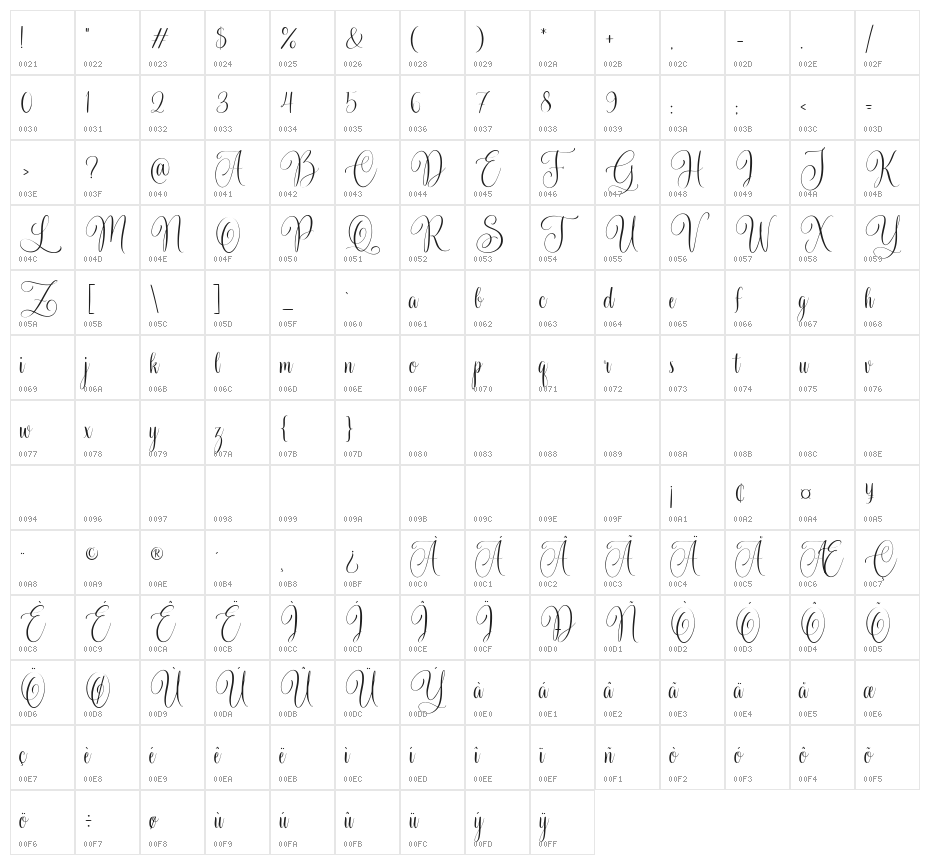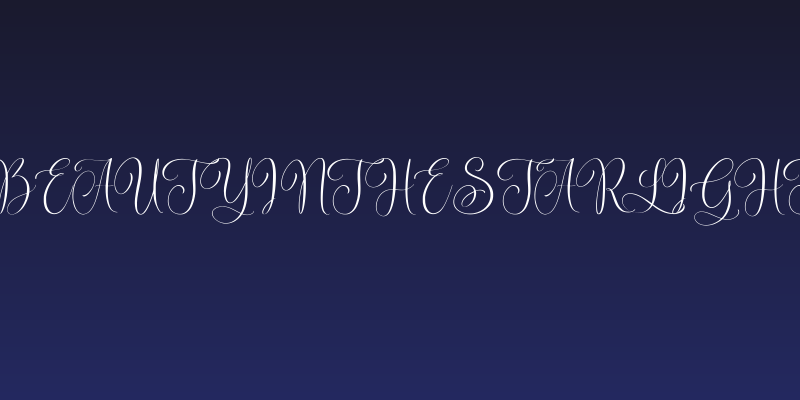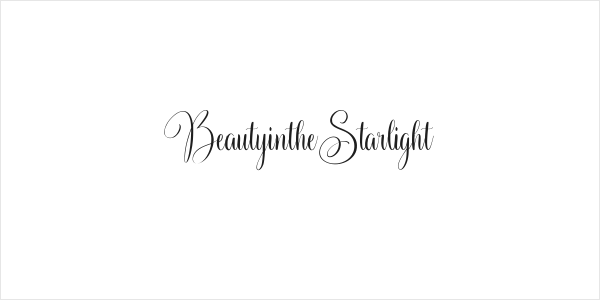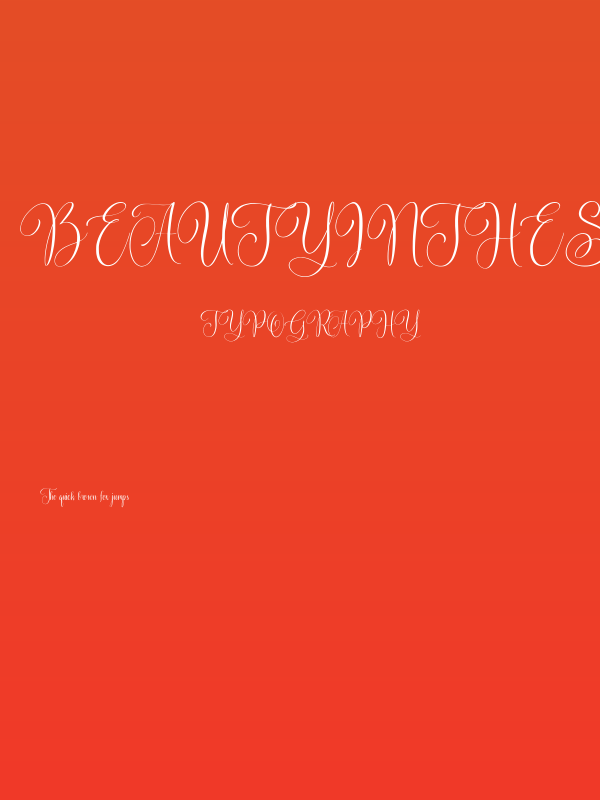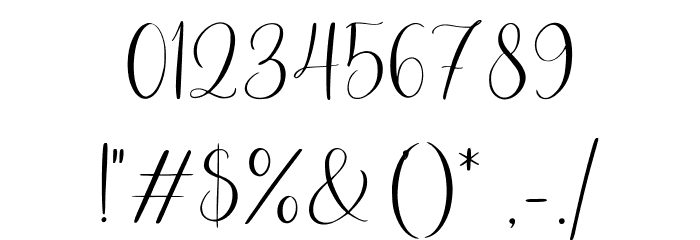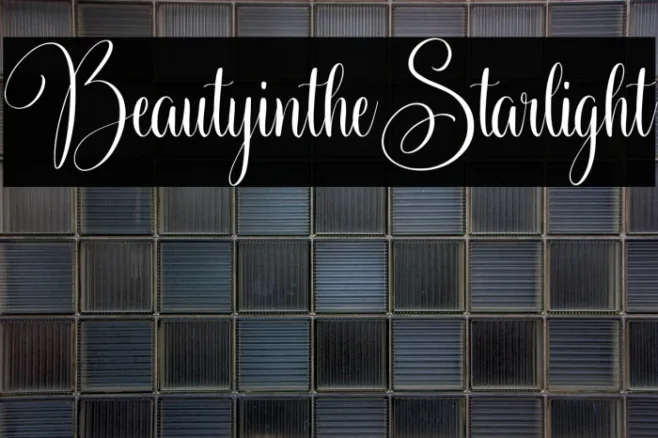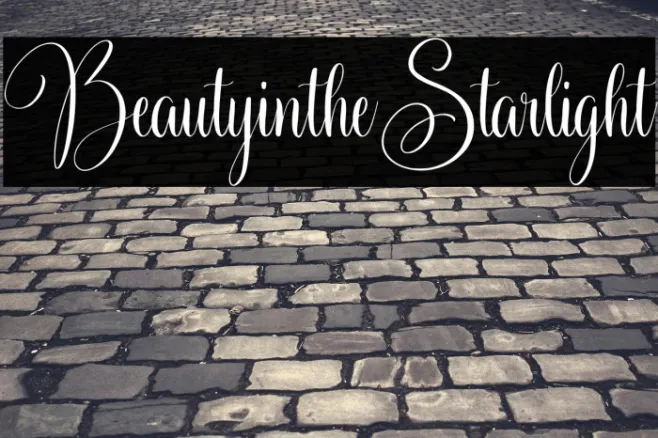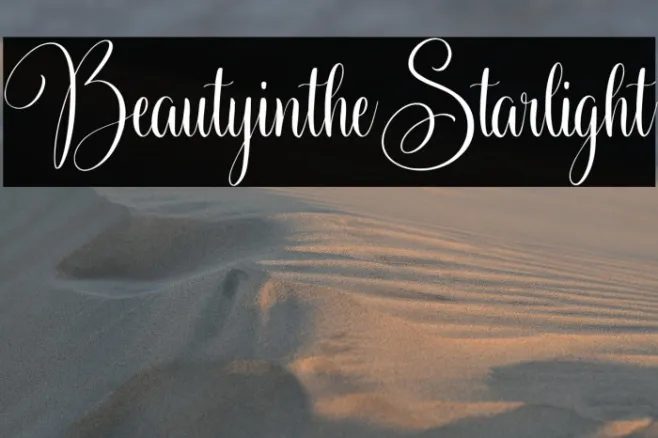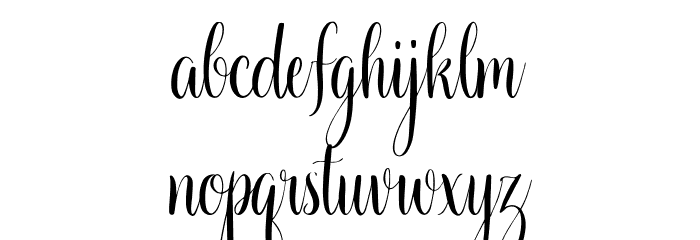
BeautyintheStarlight Font
BeautyintheStarlight Description
This elegant script font features a flowing, cursive style with intricate loops and flourishes, creating a sense of sophistication and grace. The uppercase letters are particularly ornate, with sweeping curves and decorative elements that give each character a unique personality. The lowercase letters maintain a consistent flow, with elongated ascenders and descenders that enhance the font's elegant appearance. The numerals are styled to match the letters, with a slightly more restrained design that ensures readability. Special characters are included, each with its own distinct flair, adding versatility to the font's use. Overall, this font exudes a sense of romance and charm, making it ideal for projects that require a touch of elegance.